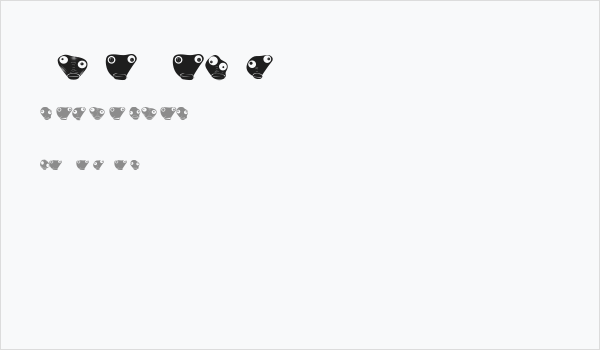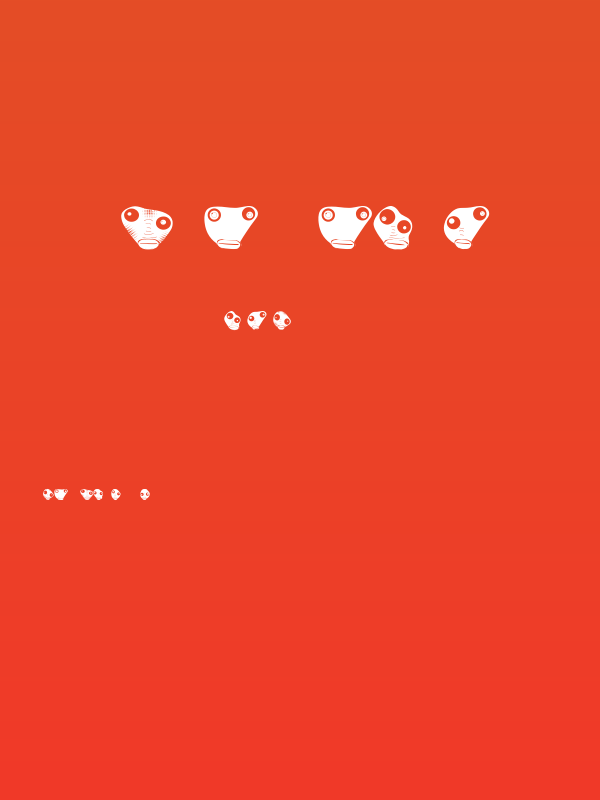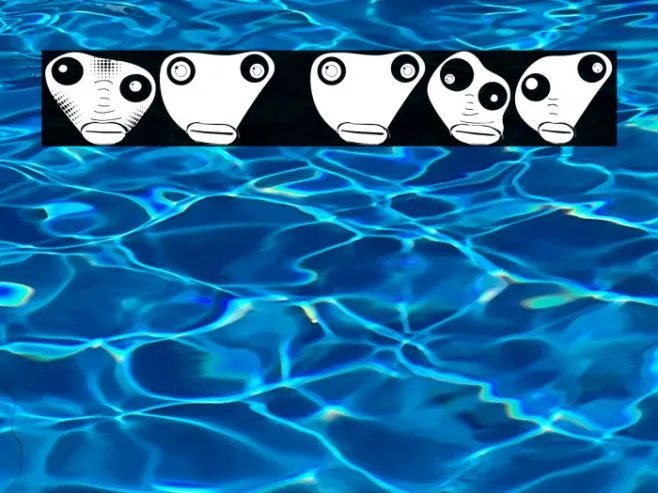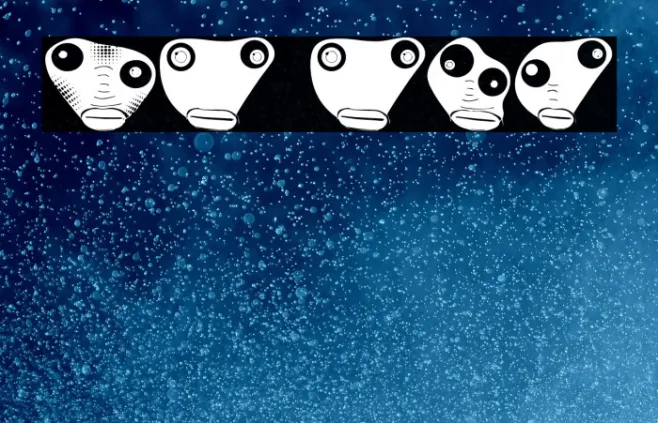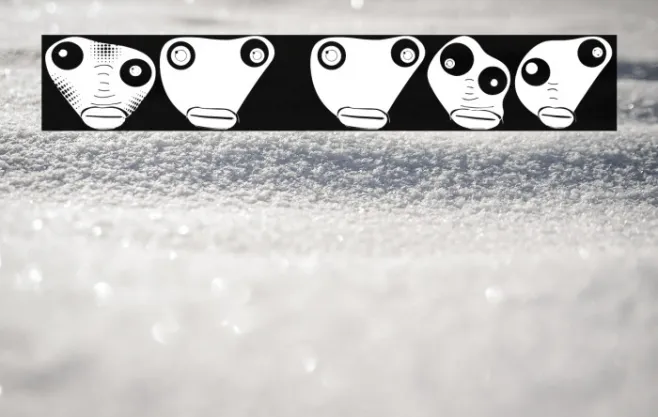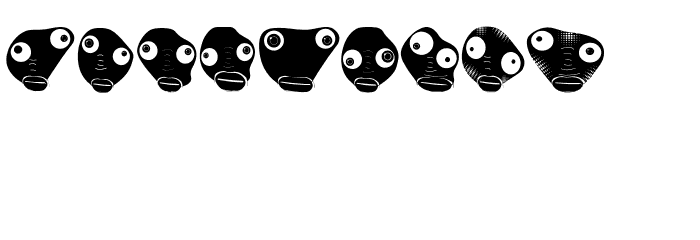
Knistern Regular Font
Knistern Regular Description
This unique font features characters that resemble abstract, playful faces. Each letter is crafted with a distinct personality, incorporating bold shapes and expressive eyes. The design is whimsical and artistic, making it stand out with its creative flair. The characters are filled with solid black, and the eyes are prominent, adding a quirky touch. This font is perfect for projects that require a fun and imaginative style, offering a refreshing departure from traditional typefaces. Its decorative nature makes it ideal for artistic and unconventional applications.
| Use Case | Logos, Posters, Artistic projects |
| Proposed Projects | Ideal for children's books, playful branding, creative posters, and artistic projects. |